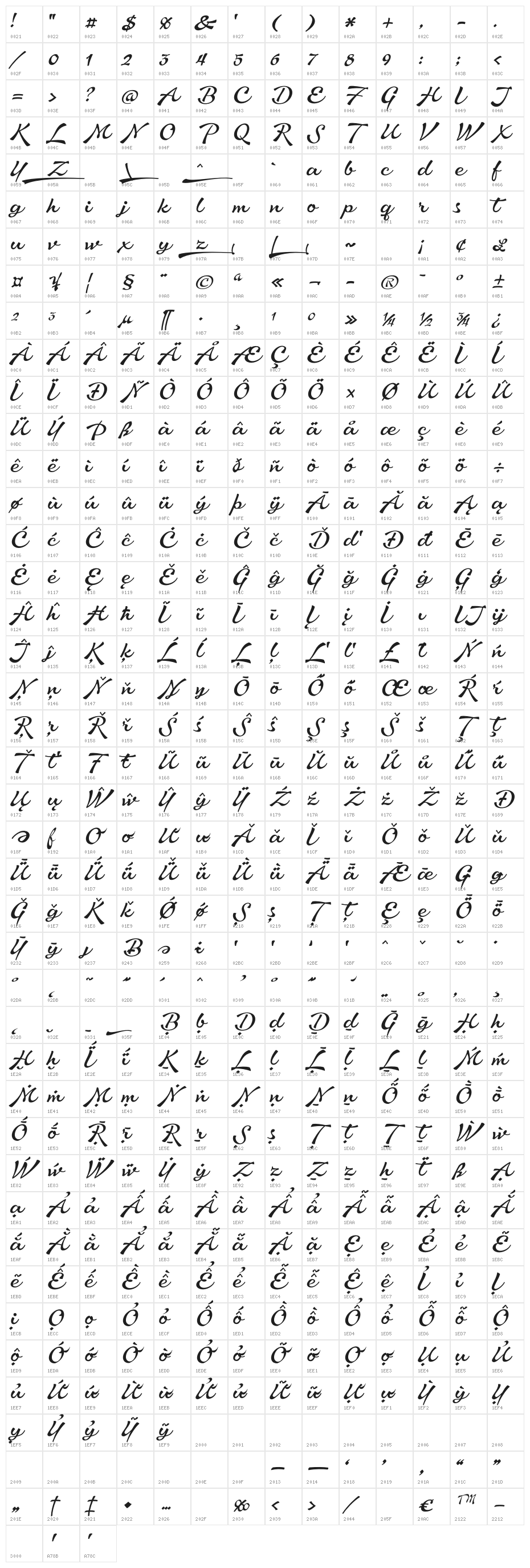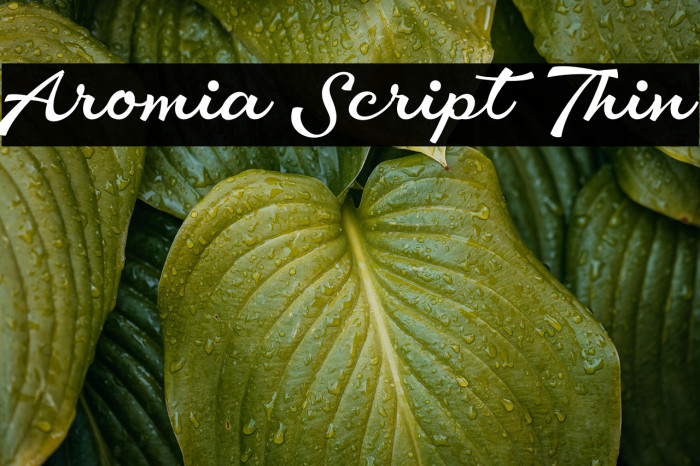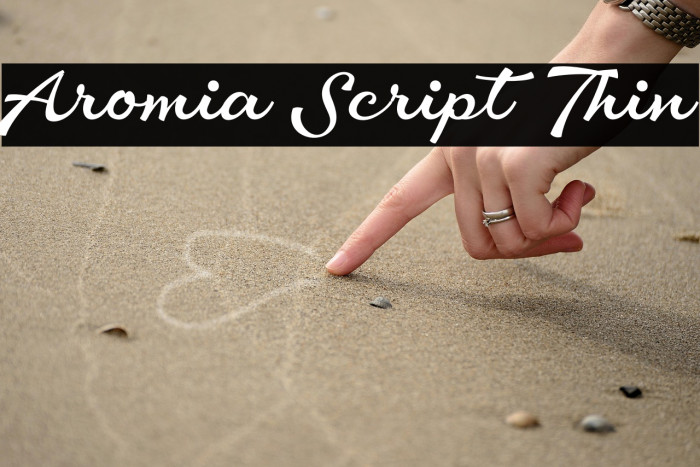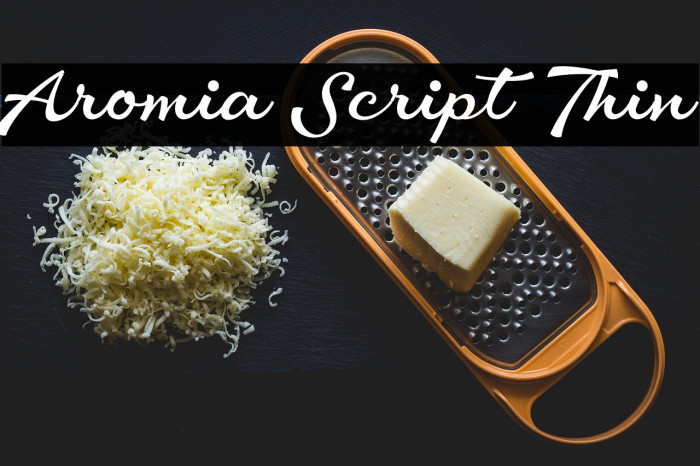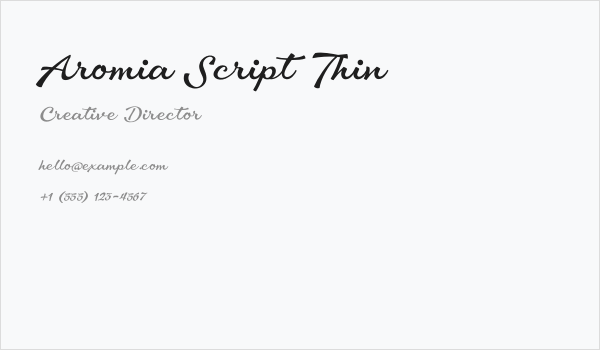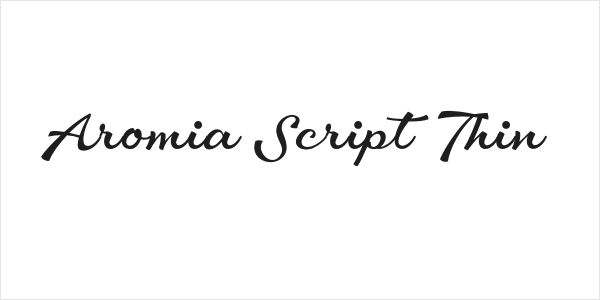
Aromia Script Thin Font
Aromia Script Thin Description
This elegant script font features a flowing, cursive style that exudes sophistication and grace. The letters are connected seamlessly, creating a fluid and harmonious appearance. The uppercase letters are slightly more ornate, with gentle curves and flourishes that add a touch of flair. The lowercase letters maintain a consistent rhythm, enhancing readability while retaining the script's artistic charm. The numerals and special characters are designed to complement the overall aesthetic, ensuring a cohesive look across all text elements. This font is ideal for projects that require a personal, handwritten touch, such as invitations, greeting cards, and branding materials.
| Use Case | Headlines, Invitations, Branding |
| Proposed Projects | Ideal for wedding invitations, elegant branding, personal stationery, and artistic designs. |